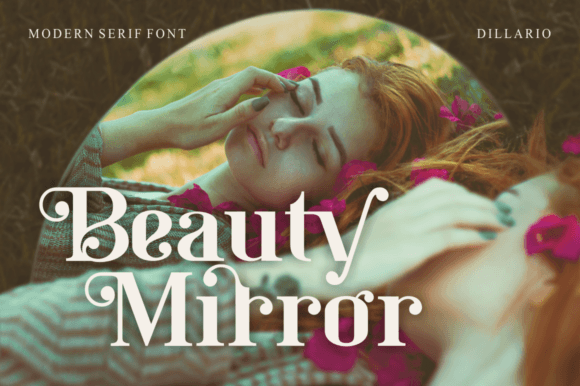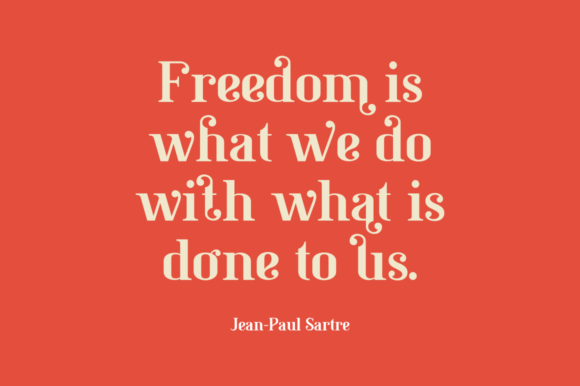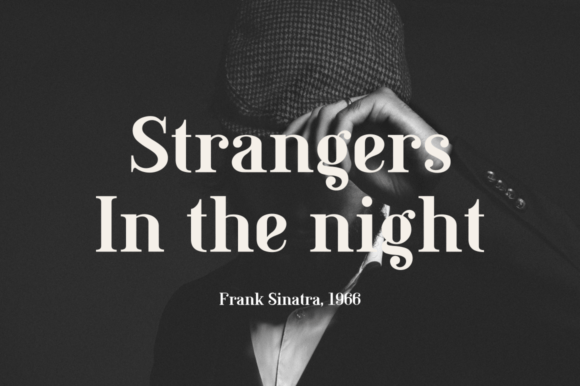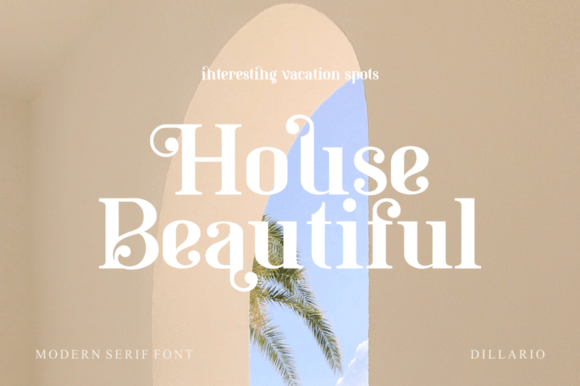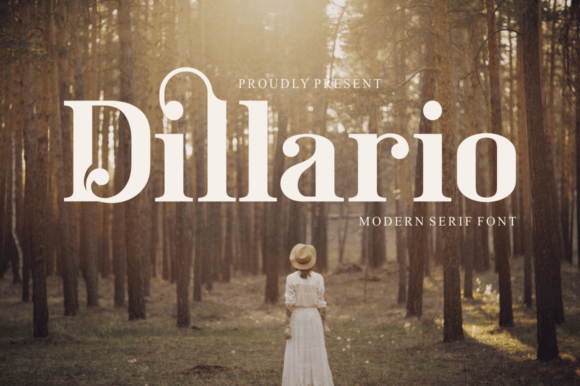
Dillario Font: Elevate Your Designs with Sophistication and Elegance
In the world of typography, fonts play a crucial role in conveying the tone and personality of a design. For those seeking to add a touch of luxury, elegance, and femininity to their projects, the Dillario font is an exceptional choice. This sophisticated, charming serif font is specifically designed to bring a fashionable touch to modern, chic designs. In this article, we’ll explore the features, benefits, and uses of the Dillario font, making it a must-read for designers and crafters looking to elevate their work.
What is Dillario Font?
Dillario is a meticulously crafted serif font that exudes sophistication and charm. Its elegant design makes it perfect for luxury projects, high-end branding, and feminine-themed designs. The font’s classic serif structure, combined with its refined lines and curves, creates a visually appealing aesthetic that is both timeless and trendy.
Key Features of Dillario Font
• Sophisticated and Charming Design: Dillario’s design is characterized by its elegant lines, refined curves, and classic serif structure, making it perfect for luxury and feminine projects.
• Fashionable Touch: The font’s modern and chic aesthetic ensures that your designs stay up-to-date with the latest trends.
• Versatility: Dillario is suitable for a wide range of design applications, from branding and advertising to packaging and editorial design.
• Elegant and Refined: The font’s refined features make it perfect for designs that require a touch of sophistication and luxury.
Benefits of Using Dillario Font
Using Dillario font in your designs offers several benefits, including:
• Instant Luxury Feel: The font’s sophisticated design instantly elevates your designs, giving them a luxurious and high-end feel.
• Enhanced Elegance: Dillario’s elegant features add a touch of refinement to your designs, making them perfect for feminine and luxury projects.
• Improved Readability: The font’s clear and refined structure ensures excellent readability, making it suitable for body text and headlines.
• Unique and Memorable: Dillario’s distinctive design helps your brand stand out, making it more memorable and recognizable.
Who Can Benefit from Dillario Font?
Dillario font is an excellent choice for a variety of designers and crafters, including:
• Graphic Designers: Those working on luxury branding, advertising, and editorial design projects can benefit from Dillario’s sophisticated and elegant design.
• Fashion Designers: Fashion designers and brands seeking to create a luxurious and feminine aesthetic can use Dillario to elevate their designs.
• Stationery and Gift Designers: Crafters and designers creating stationery, gift tags, and other paper products can add a touch of elegance and sophistication with Dillario.
• Web Designers: Web designers can use Dillario to create modern, chic, and luxurious websites that reflect their clients’ brand identities.
Tips for Using Dillario Font Effectively
To get the most out of Dillario font, consider the following tips:
• Pair with Neutral Colors: Combine Dillario with neutral colors like black, white, and pastels to create a clean and elegant look.
• Experiment with Font Sizes: Use Dillario in various font sizes to create visual hierarchy and add emphasis to important design elements.
• Add Decorative Elements: Combine Dillario with decorative elements like illustrations, patterns, or textures to add a touch of whimsy and personality to your designs.
Author Aruna type
In conclusion, Dillario font is an exceptional choice for designers and crafters seeking to add a touch of sophistication, elegance, and luxury to their projects. With its refined features, versatile design, and excellent readability, Dillario is perfect for creating modern, chic designs that reflect your brand’s identity. Whether you’re working on luxury branding, fashion design, or editorial projects, Dillario font is sure to elevate your work and leave a lasting impression.